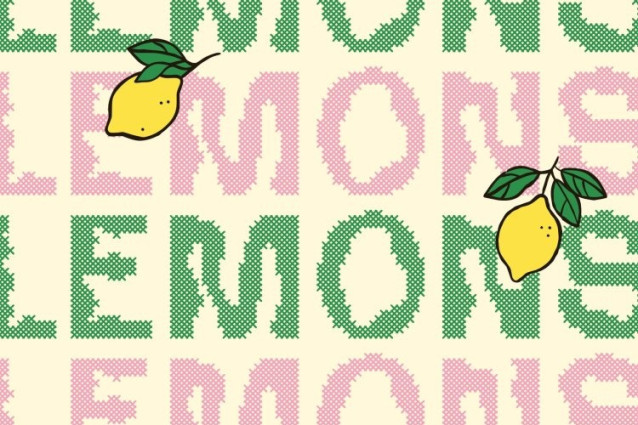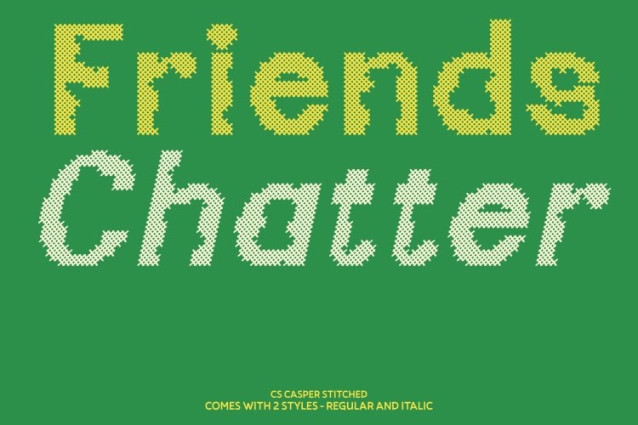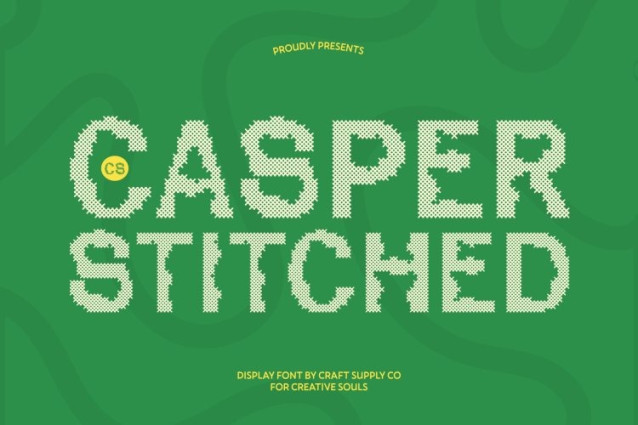
CS Casper Stitched Font
CS Casper Stitched Font is a display sans serif font that embraces a bold psychedelic style, featuring imaginative and unconventional letterforms that twist, stretch, and flow with expressive energy. The font’s distorted shapes and dynamic patterns create a visually vibrant effect that instantly captures attention. Enhanced with a stitched texture inspired by thread sewn or embroidered on fabric, this version introduces a handcrafted dimension that adds depth and unique personality to the psychedelic design.
Playful Distortion with Textured Stitch Detail
The psychedelic nature of this font appears through its fluid curves, warped proportions, and experimental shapes. Layered with subtle cross-stitch patterns, each letter gains an embossed fabric-like texture that enriches the visual complexity. This stitched effect softens the bold distortions while adding warmth and artistic craftsmanship to the energetic design.
Funky Style with Vibrant Creative Expression
The combination of psychedelic movement and stitched detailing produces a lively typographic style that feels both experimental and handcrafted. The unusual shapes bring a sense of spontaneity and imagination, while the stitched texture reinforces the artistic.
Perfect for Music, Posters, and Experimental Design
This is ideal for projects that demand bold creativity and visual excitement. It works beautifully for music event posters, album artwork, festival branding, merchandise, and experimental graphic design. With its fusion of psychedelic distortion and stitched craftsmanship, the font delivers a distinctive, energetic.